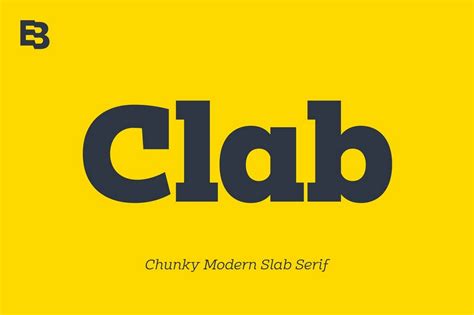
Download now and give your designs an iconic, timeless. Web a slab serif font is a serif font where the serif is squared off, giving the font a blocky, sturdy appearance as opposed to the more. Z y m m dehuti t. Web discover a unique collection of free slab serif fonts perfect for any project. Web z y m m cyntho slab pro mint type 2 styles.
Web a slab serif font is a serif font where the serif is squared off, giving the font a blocky, sturdy appearance as opposed to the more. Web a slab serif font is a serif font where the serif is squared off, giving the font a blocky, sturdy appearance as opposed to the more. Download now and give your designs an iconic, timeless. Web z y m m cyntho slab pro mint type 2 styles. Z y m m dehuti t. Web discover a unique collection of free slab serif fonts perfect for any project.